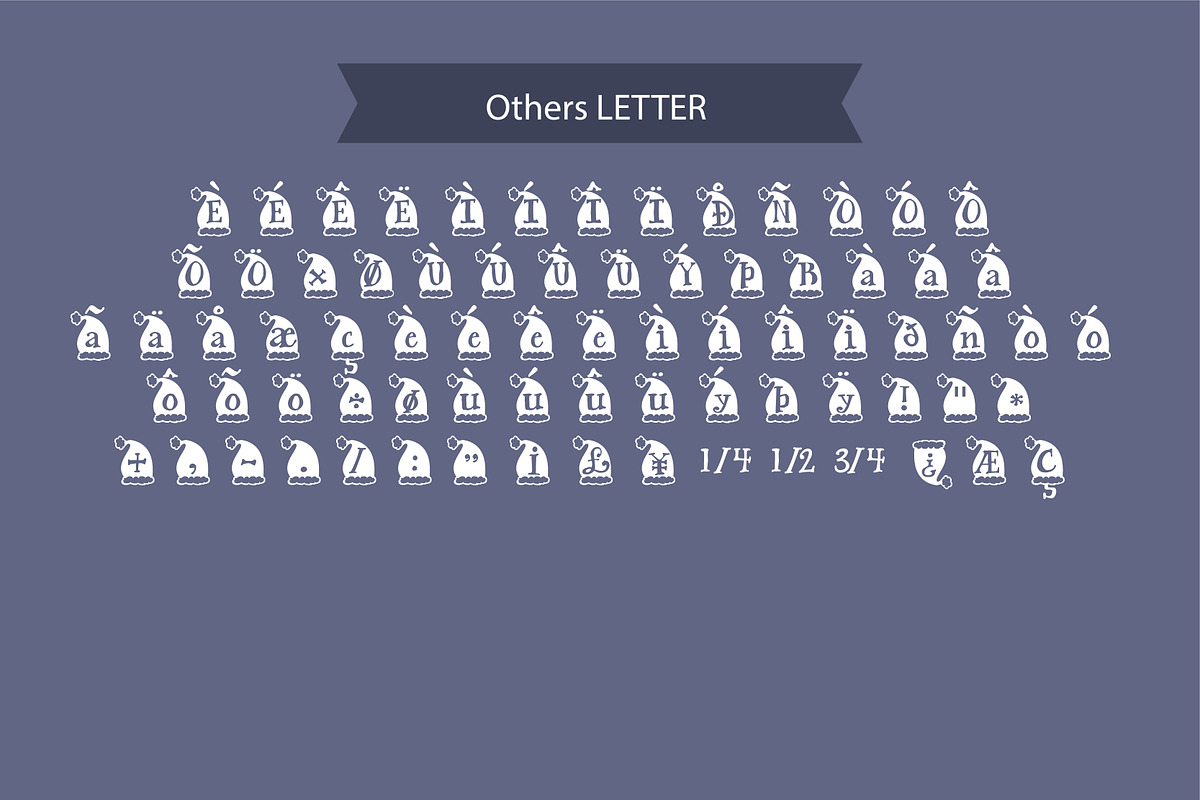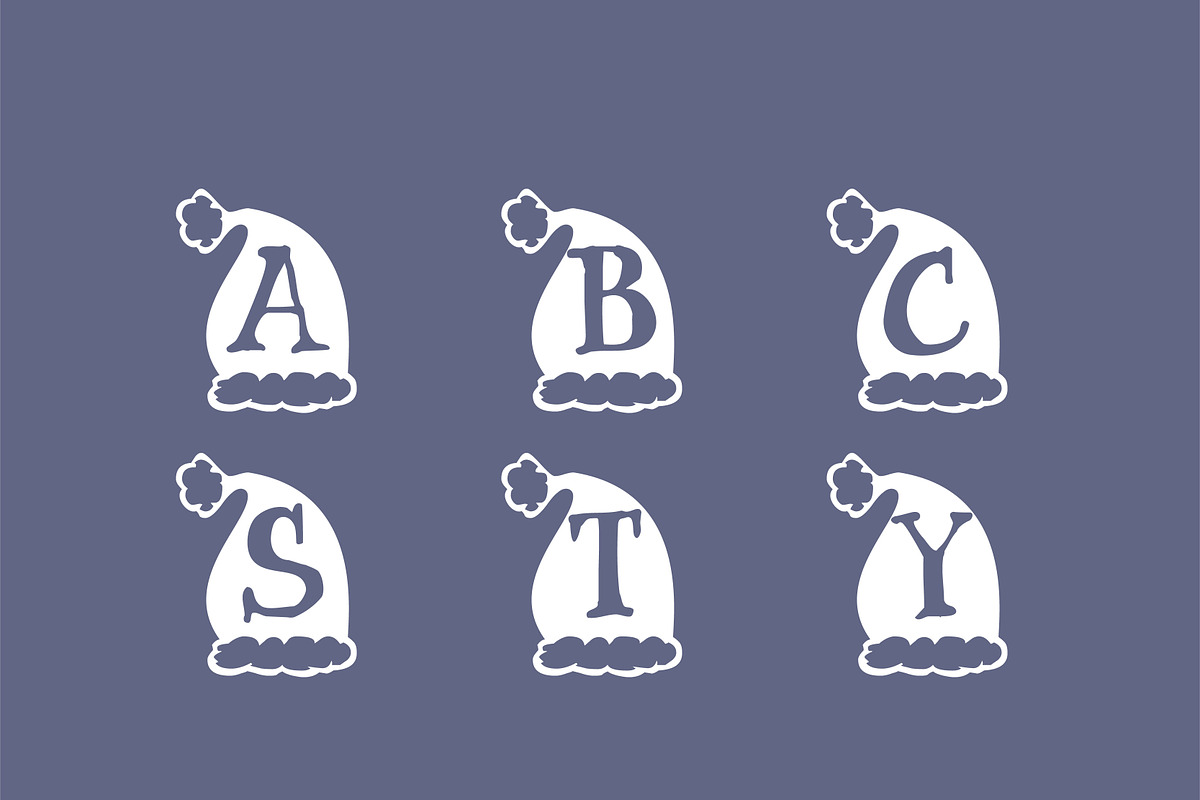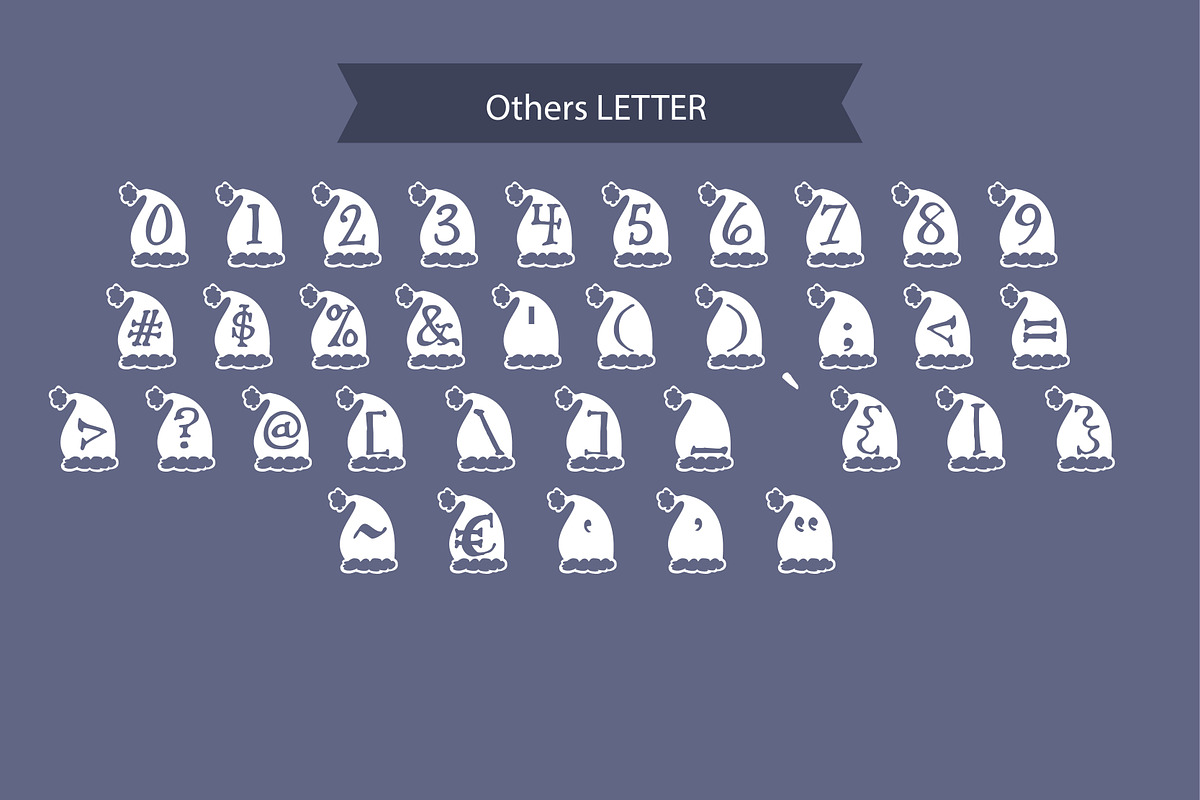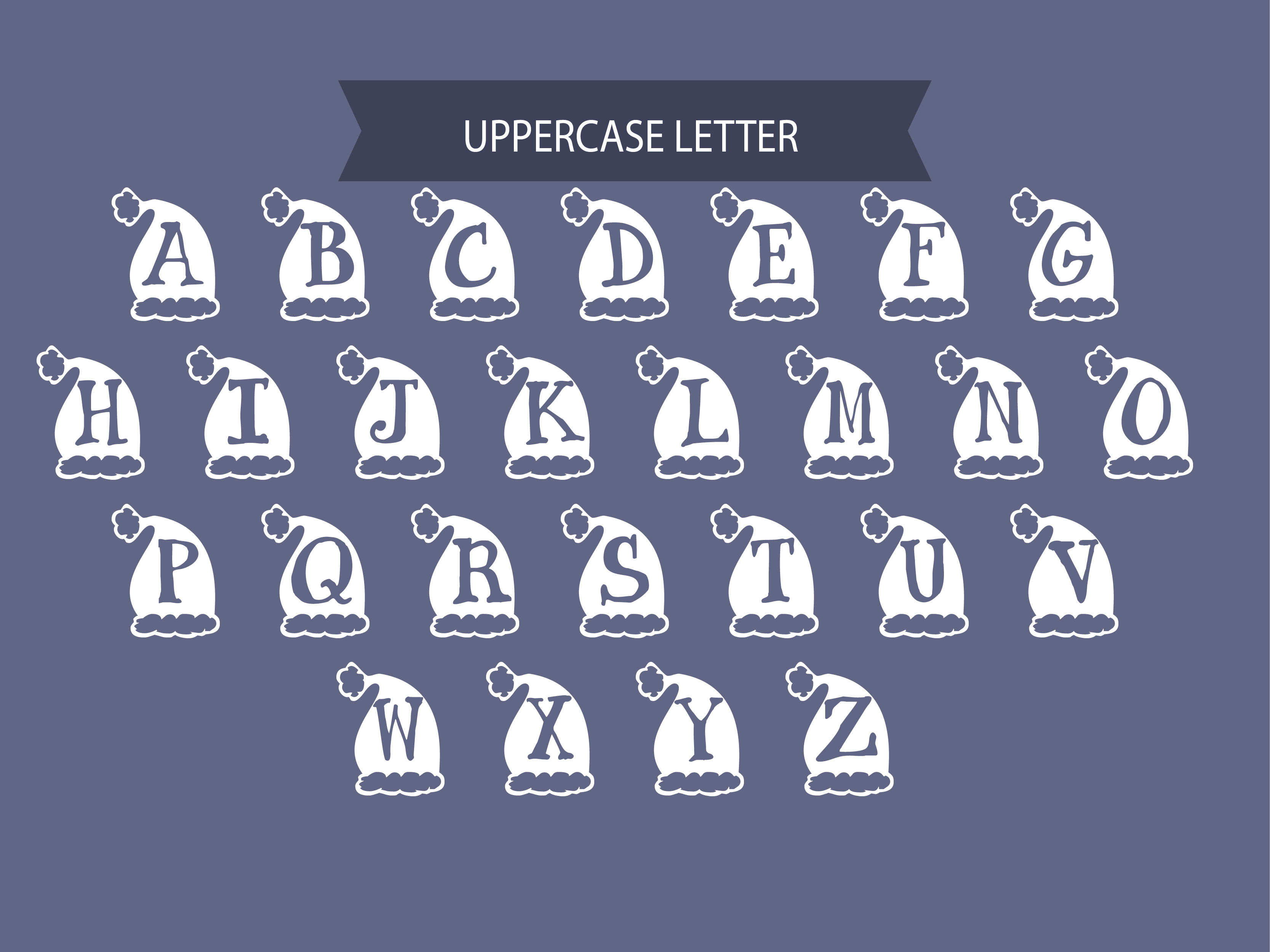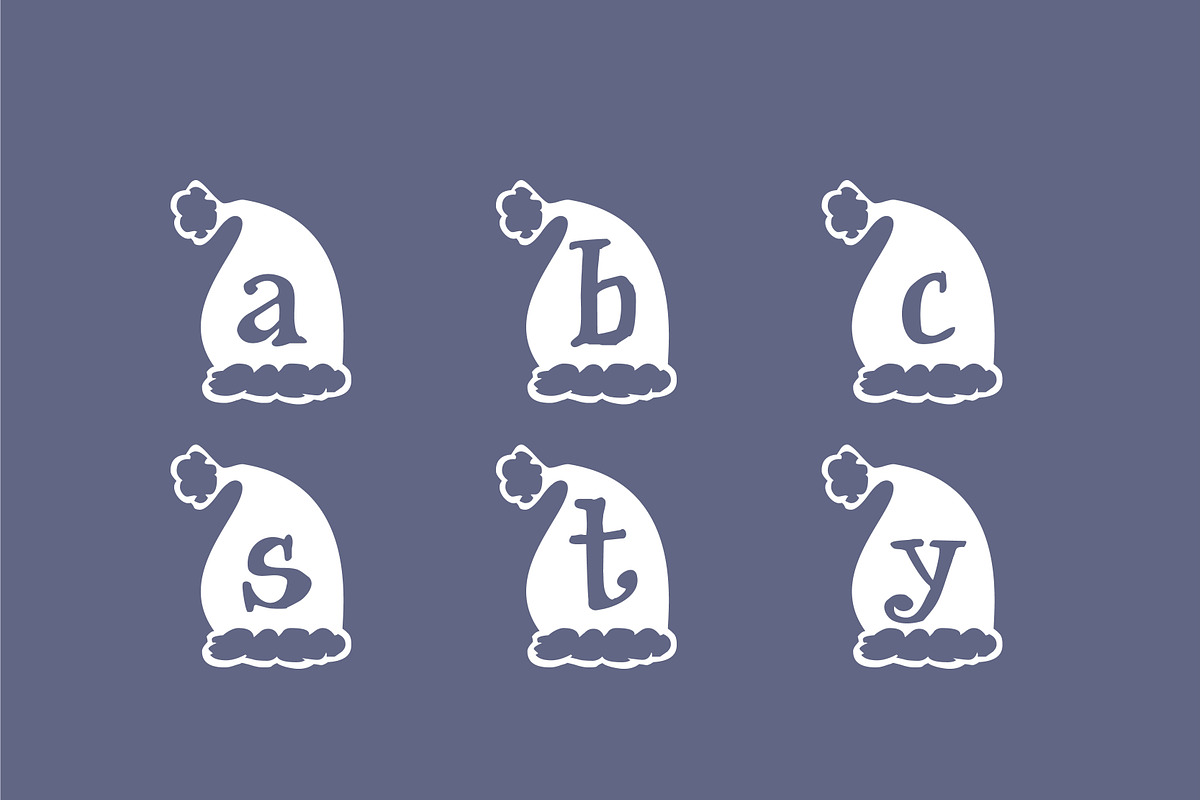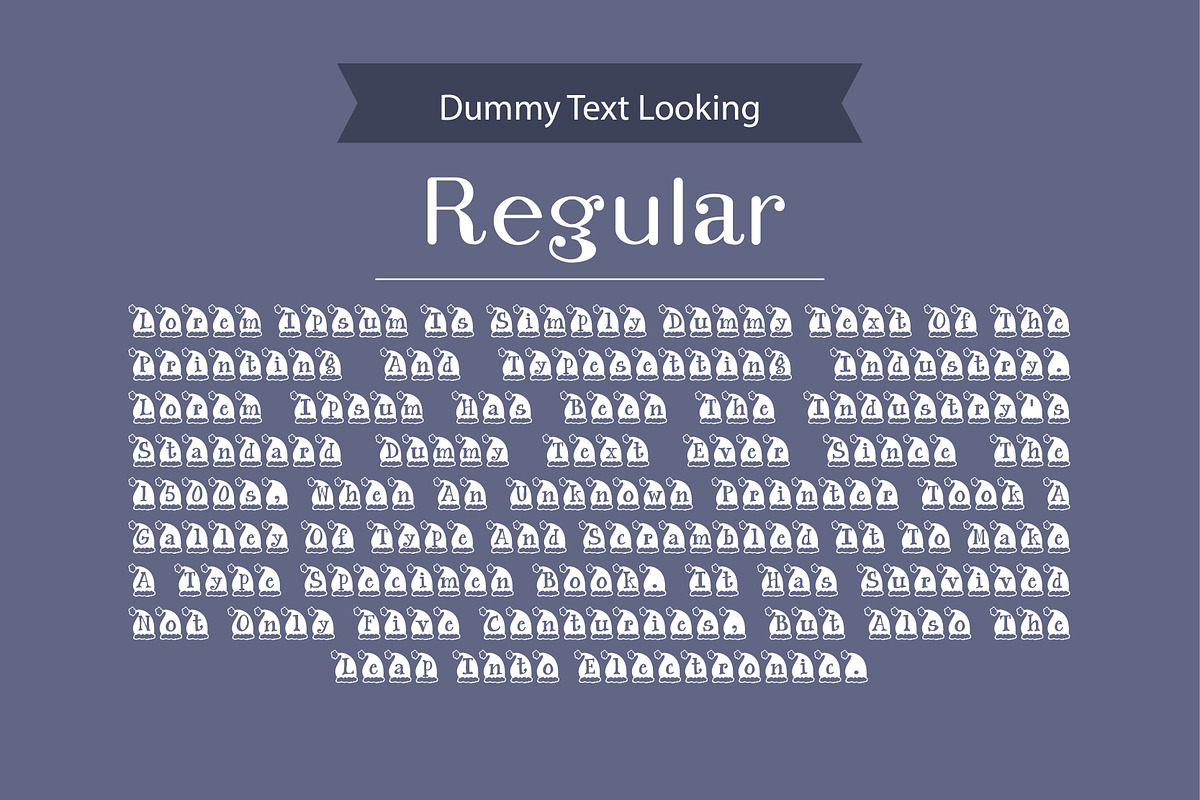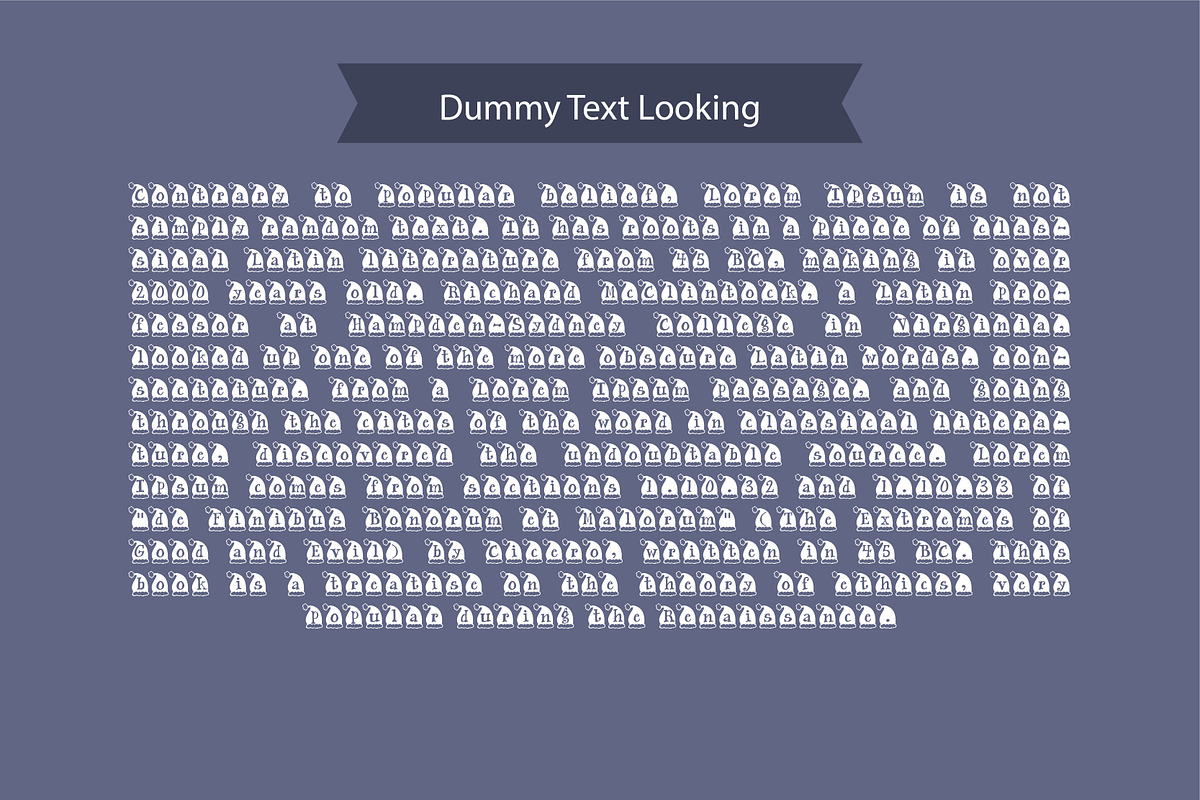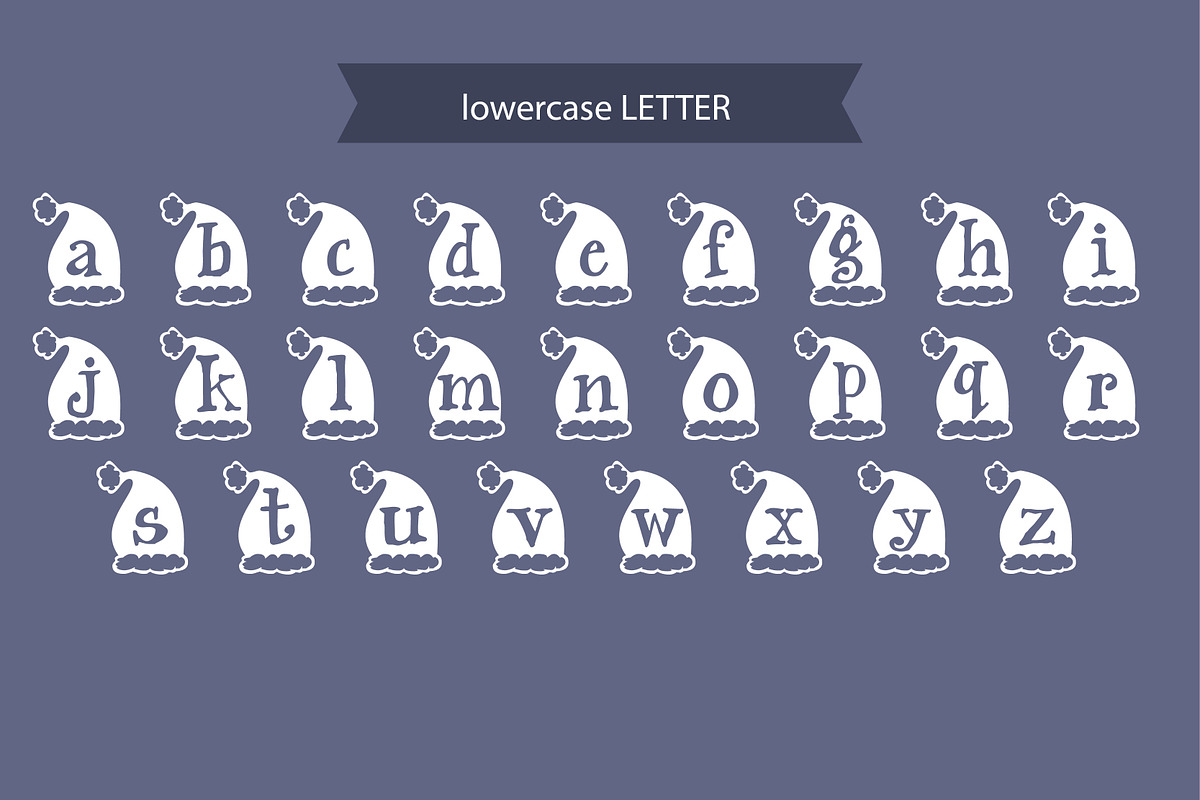
Holiday Cap Font
Holiday Cap Font is a stylish Font. Available in Regular, version with all special characters. Mac, PC, True type and Open type font files.